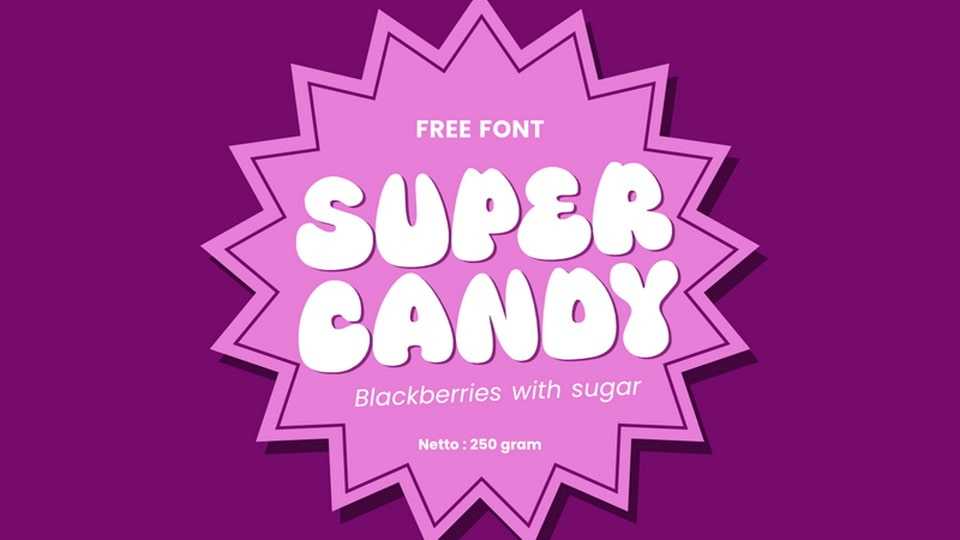
Download Super Candy font, a groovy, playful hand-crafted typeface that’s like a blast from the past with a modern twist. Super Candy features a whimsical and fluid design, with each letter exuding a sense of rhythm and artistic expression.